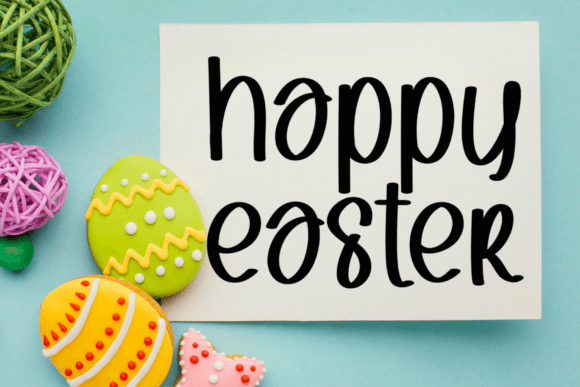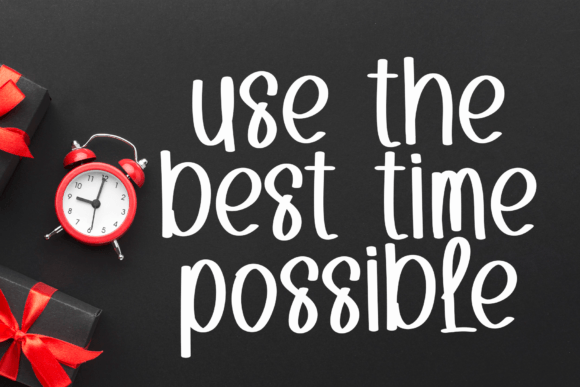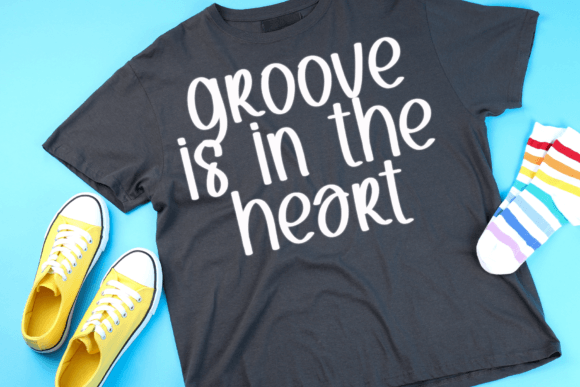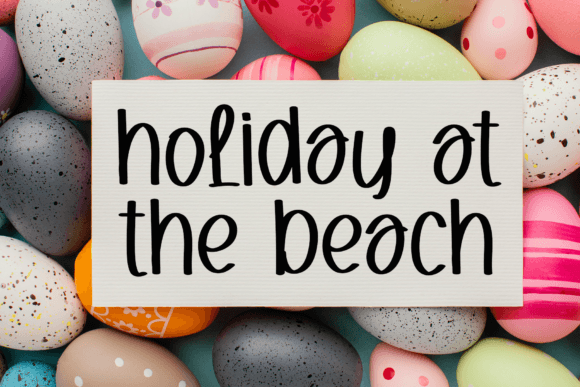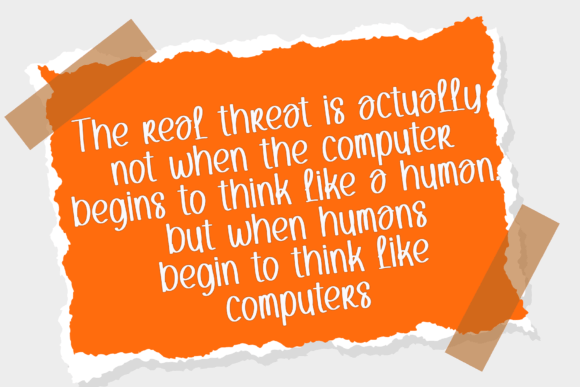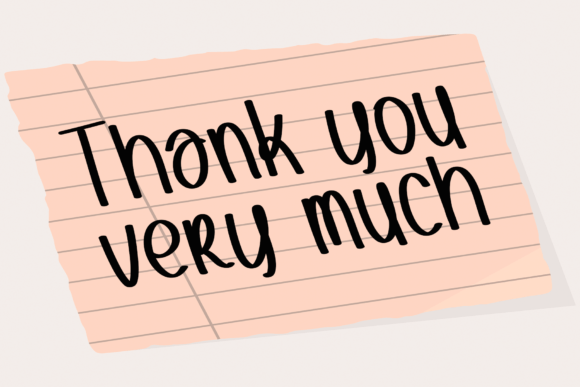
Easter Font: Elevate Your Designs with Timeless Elegance
Easter is a stylish handwritten font that embodies the perfect blend of modern sophistication and classic charm. Inspired by the timeless beauty of traditional calligraphy, this contemporary font is designed to add a touch of elegance to your projects. With its impeccable form, balanced structure, and varied strokes, Easter Font is the perfect choice for designers and crafters looking to create stunning visual content.
The Inspiration Behind Easter Font
Easter Font draws inspiration from the classic calligraphy of the past, with a modern twist. The font’s creator aimed to capture the essence of traditional handwriting, while infusing it with a fresh and contemporary atmosphere. The result is a font that exudes sophistication, elegance, and refinement. Whether you’re working on a branding project, a wedding invitation, or a craft design, Easter Font is sure to impress.
Key Features of Easter Font
- Handwritten with love: Easter Font is a carefully crafted handwritten font, with each letter and stroke meticulously designed to create a sense of fluidity and movement.
- Contemporary atmosphere: This font boasts a modern and fresh feel, making it perfect for designs that require a touch of sophistication and elegance.
- Impeccable form: Easter Font features precise and clean lines, ensuring that your text looks polished and refined.
- Balanced and varied: The font’s balanced structure and varied strokes create a sense of visual interest, making it ideal for designs that require a touch of personality.
Easter Font is a versatile font that can be used in a wide range of design projects, including:
- Branding and logos: Create a lasting impression with Easter Font’s elegant and sophisticated style.
- Wedding invitations and stationery: Add a touch of romance and whimsy to your wedding designs with this beautiful font.
- Crafting and DIY projects: Use Easter Font to create stunning handmade cards, gift tags, and other craft projects.
- Digital and print media: This font is perfect for use in digital and print media, including social media graphics, brochures, and posters.
Tips for Using Easter Font
- Experiment with font sizes: Easter Font looks great in a variety of font sizes, from large headings to smaller body text.
- Pair with complementary fonts: Combine Easter Font with other fonts to create a unique and visually appealing design.
- Play with colors: This font looks great in a range of colors, from bold and bright to soft and pastel.